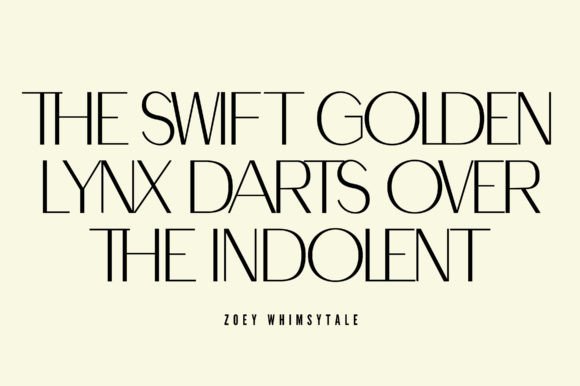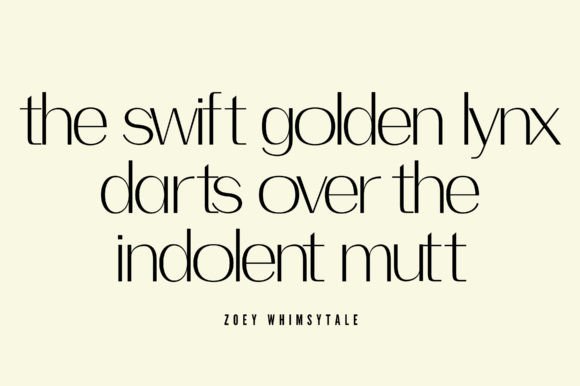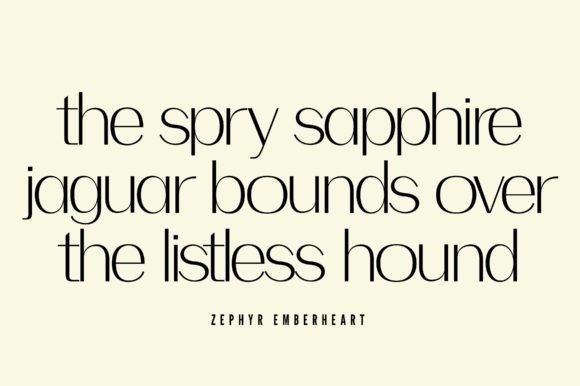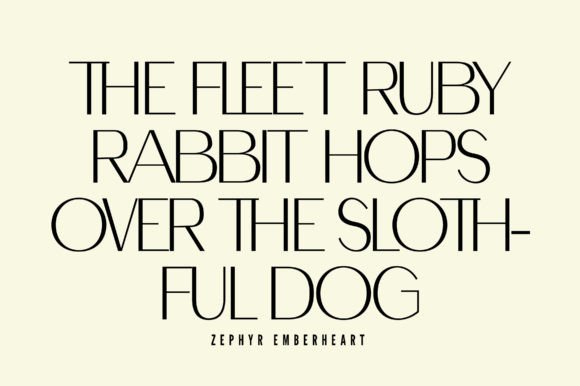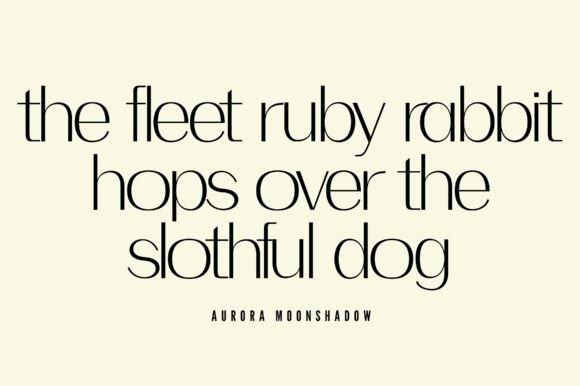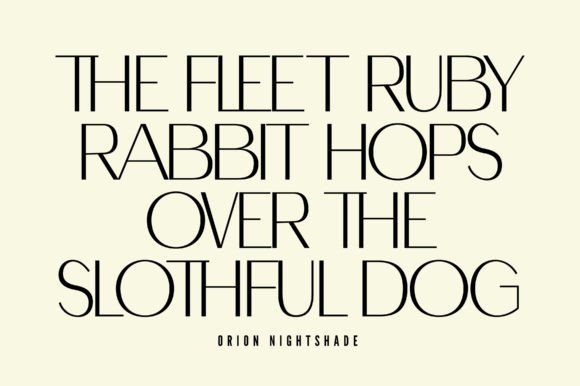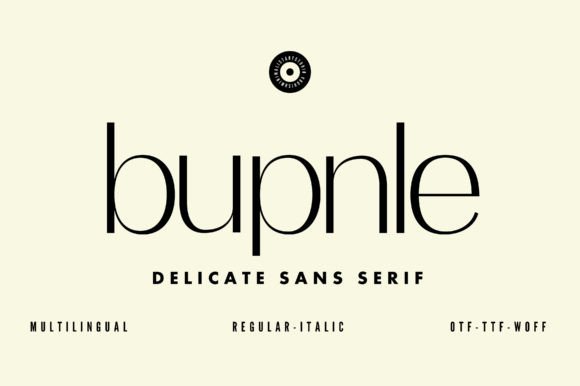
Introducing Bupnle: The Ultimate Sans Serif Font for Modern Creatives
I’ll never forget the struggle I faced while working on a branding project for a trendy new cafe. My client wanted a font that was modern, elegant, and easy to read, but I just couldn’t seem to find the perfect fit. That was until I stumbled upon Bupnle, a game-changing sans serif typeface that has since become my go-to for all sorts of creative projects.
The Birth of Bupnle: A Story of Design Inspiration
Bupnle was crafted with the goal of creating a font that embodies the essence of modern simplicity. Its designer sought to create a typeface that would be both elegant and chic, with a clean and minimalist aesthetic that would elevate any creative project. The result is a font that is both sophisticated and effortless, perfect for designers, crafters, and creative hobbyists alike.
My Honest Review of Bupnle
So, what do I love about Bupnle? Here are a few highlights:
- ✨ Effortless style: Bupnle’s sleek and sophisticated design makes it perfect for projects that require a touch of elegance.
- ✅ Unparalleled legibility: The distinct and balanced letterforms of Bupnle ensure that your message remains clear and impactful across various mediums.
- 🌈 Versatility: Bupnle adapts seamlessly to any project, from digital platforms to print media.
Of course, no font is perfect, and Bupnle is no exception. A few quirks to keep in mind:
- 🤔 Limited character set: While Bupnle has a wide range of characters, it may not have every special character or glyph you need.
- ⚠️ Not ideal for body text: While Bupnle is great for headlines and titles, it may not be the best choice for lengthy blocks of text.
Exploring Bupnle’s OpenType Features
Bupnle offers a range of OpenType features that can help take your designs to the next level. Some of the features you can expect to find include:
| Feature | Description |
| Ligatures | Replace standard character combinations with stylistic ligatures to add visual interest to your text. |
| Stylistic Alternates | Swap out standard characters for stylistic alternates to create a more unique and creative look. |
| Glyphs | Access a range of glyphs and special characters to add visual interest to your text. |
- Q: What type of projects is Bupnle best suited for?
- A: Bupnle is perfect for projects that require a modern, elegant, and easy-to-read font, such as branding, logos, and marketing materials.
- Q: Is Bupnle available in different weights and styles?
- A: Yes, Bupnle comes in a range of weights and styles, making it versatile and adaptable to different design needs.